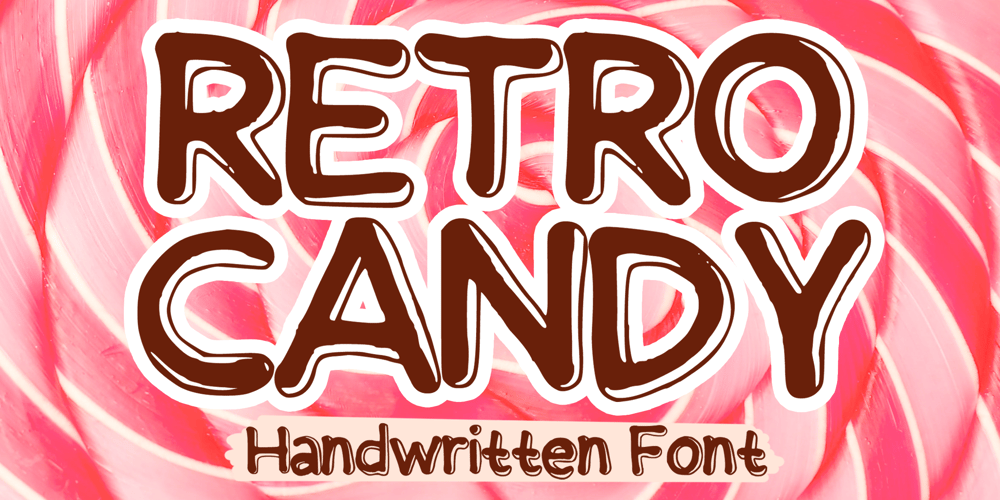
Retro Candy Font Family was designed by Gabriel Valentinus and published by Mvmet. Retro Candy contains 1 styles and family package options. Retro Candy is a cool retro style candy display font. You can use it for anything ranging from t-shirts, kids’ book designs, greeting cards, stickers, and posters, or anything that needs a casual touch. Fall in love with its incredibly versatile style, and use it to create lovely designs!